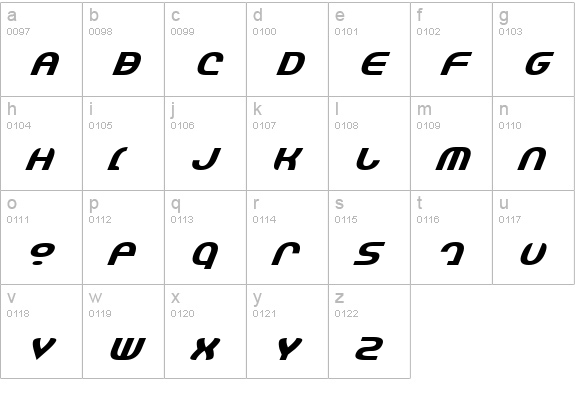
Jannisary Shield Italic is a distinctive, italic variant in the Jannisary typeface family \xE2\x80\x94 well suited to design and typography projects.
Introducing Jannisary Shield Italic, a captivating font that effortlessly merges elegance and strength. This typeface exudes a sense of power and sophistication, making it the perfect choice for projects that demand attention and leave a lasting impact. Jannisary Shield Italic showcases a unique blend of bold, italicized letterforms that add a touch of flair and individuality to any design. Its gracefully curved strokes and sharp edges create a harmonious balance, capturing the essence of modernity and tradition in one captivating package. This font's versatility knows no bounds - whether it is used for headlines, logos, posters, or even invitations, Jannisary Shield Italic commands attention and conveys a sense of authority. Its striking presence on any medium, be it print or digital, is sure to captivate audiences and make a lasting impression. But what truly sets Jannisary Shield Italic apart is its accessibility. This remarkable font is freely available to download at FontsMarket.com, ensuring that designers and enthusiasts alike can harness its power and elegance without any barriers. With just a few clicks, you can bring your creative vision to life with this stunning typeface, all while enjoying the convenience of instant access. So, whether you're a seasoned designer looking to add a touch of sophistication to your latest project or an aspiring creative seeking to make a bold statement, Jannisary Shield Italic is the answer. Download this free font from FontsMarket.com and unlock a world of possibilities, where elegance meets strength and creativity knows no bounds.